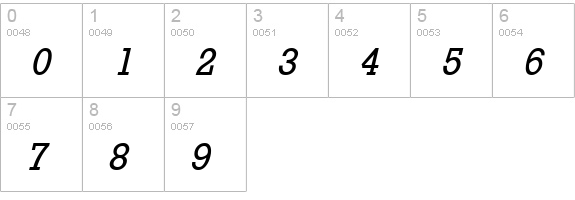
Rockney Italic is a distinctive, italic variant in the Rockney typeface family \xE2\x80\x94 well suited to design and typography projects.
Rockney Italic is a modern and stylish font that exudes elegance and sophistication. With its slanted and sleek letterforms, this font is perfect for adding a touch of sophistication to any design project. The italicized style of Rockney Italic brings a sense of flair and creativity to your text, making it stand out from the crowd. What's even better is that Rockney Italic is available for free download at FontsMarket.com, making it accessible to everyone looking to elevate their designs with this beautiful typeface. Whether you're working on a branding project, a website design, or any other creative endeavor, Rockney Italic is sure to add a touch of class and style to your work. Download it today and unleash your creativity with this stunning and versatile font.